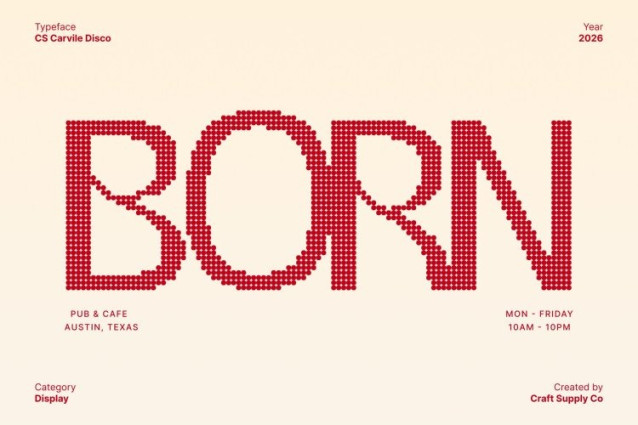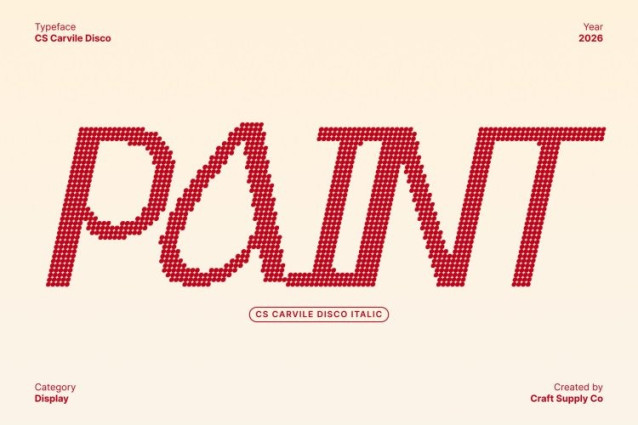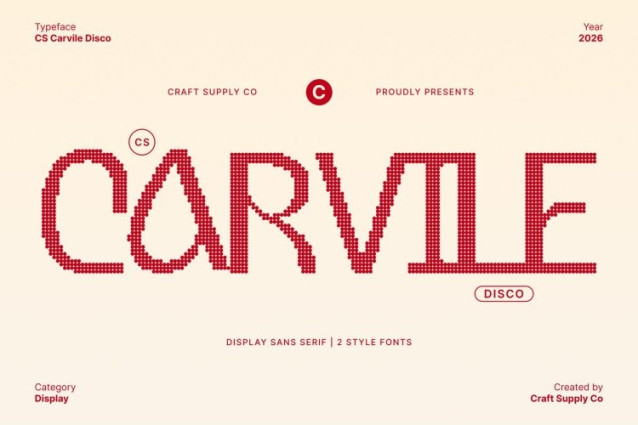
CS Carvile Disco Font This is a modern sans serif font defined by clean geometry and beautifully smooth, relaxed curves, enhanced with a subtle disco-inspired glow. Its gentle, flowing letterforms add warmth and elegance, while the festive energy brings a sense of movement like typography softly illuminated by dance-floor lights. The result is fresh, contemporary, and effortlessly stylish.
Soft Curves with Calm, Festive Confidence
Each character is thoughtfully sculpted with harmonious curves that feel friendly and inviting without losing structure. The disco influence introduces rhythm and visual flow, giving the font a relaxed yet lively personality that feels confident, modern, and quietly celebratory.
Professional Versatility with Party-Ready Appeal
This font balances professionalism and approachability with ease. It works beautifully across branding, editorial layouts, social media visuals, and digital interfaces, delivering clarity while adding a hint of festive charm. Perfect for lifestyle brands, fashion labels, wellness projects, creative studios, and modern corporate identities that want elegance with energy.
Ideal for Headings, Logos, and Stylish Visual Projects
Designed for both display and text use, this font shines in headlines, logos, posters, and refined promotional materials. Its smooth curves, modern simplicity, and subtle disco flair ensure every message feels approachable, polished, and alive with contemporary party spirit.